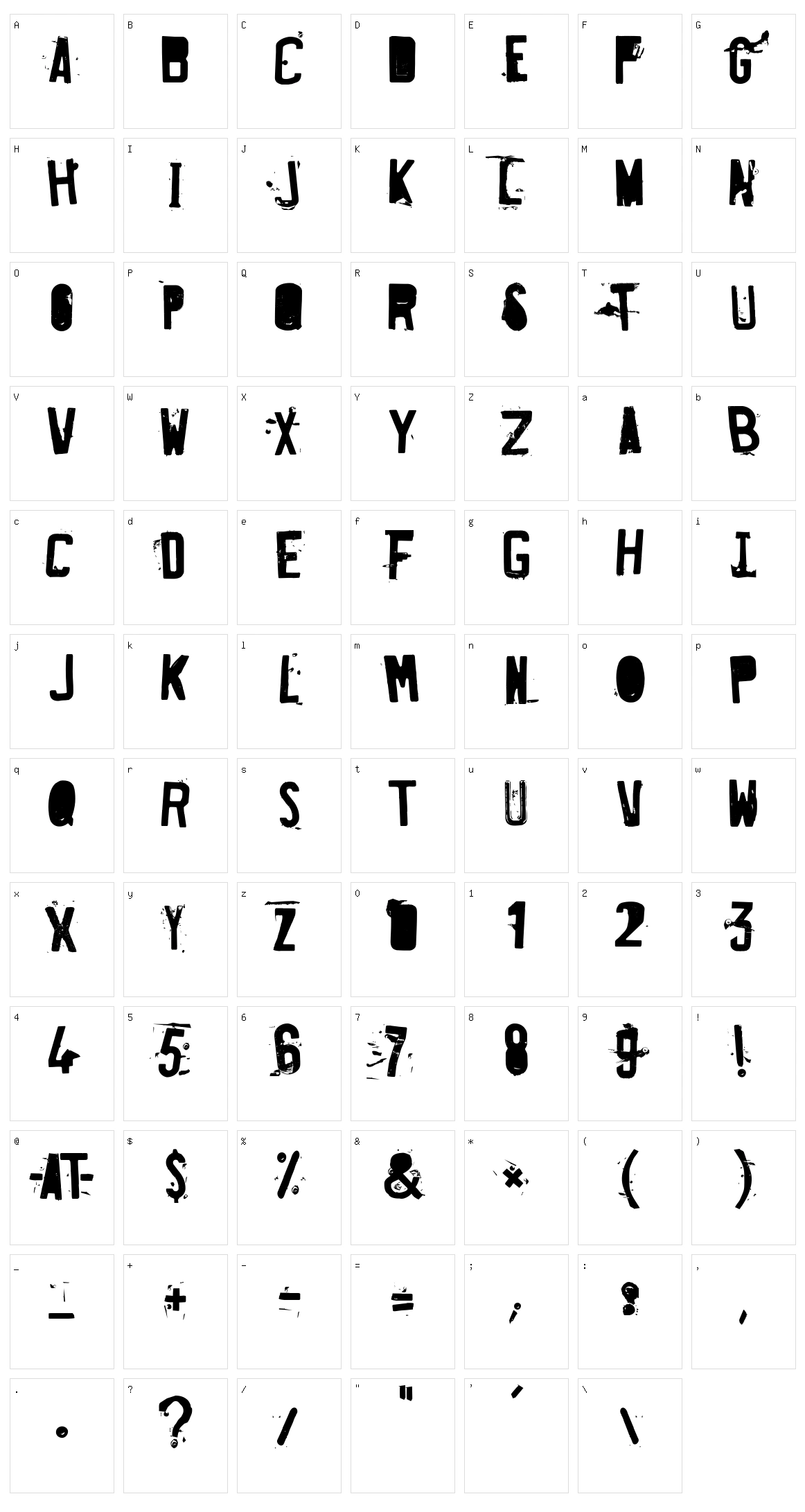
Created from pictures of License Plates, taken by myself, by Rodolphe (www.dafont.com) and by Farfadam(www.dafont.com). This font is a Drinkware, you can use it for free for your personnal use only, and if you're nice you can send me a bottle of local beer (and don't hesitate to send me samples of your work, made with this font).